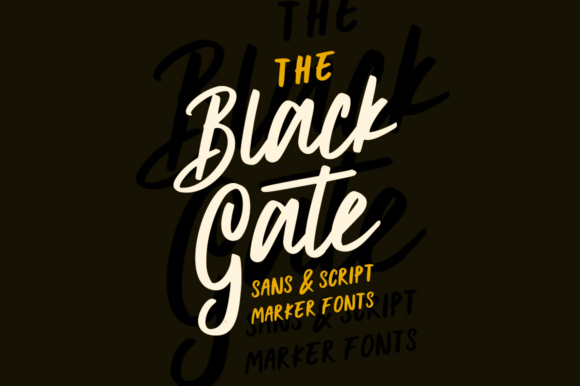
Adorn your designs with Black Gate, a beautiful hand-crafted marker font brimming with vintage charm. Inspired by classic signs and advertisements, Black Gate Script exudes an aura of authenticity and timeless elegance. Its carefully crafted strokes evoke a sense of nostalgia, while its contemporary flair adds a touch of modernity.
Let Black Gate Script effortlessly elevate your creative projects, whether it's designing alluring branding, crafting heartfelt greeting cards, creating captivating advertising campaigns, or adding a touch of individuality to badges and labels. Its alluring script will captivate your audience, leaving a lasting impression that lingers in their minds.
Black Gate Script's versatility knows no bounds. Its natural, hand-drawn texture lends itself perfectly to a wide range of design applications. From eye-catching logos that demand attention to delicate wedding invitations that radiate romance, Black Gate Script will effortlessly transform your words into works of art.
Unleash your creativity and let Black Gate Script take center stage in your designs. Its unique character and vintage charm will add depth and sophistication to your projects. Embrace the beauty of handcrafted typography and let Black Gate Script weave its magic, captivating your audience and leaving them utterly enchanted.